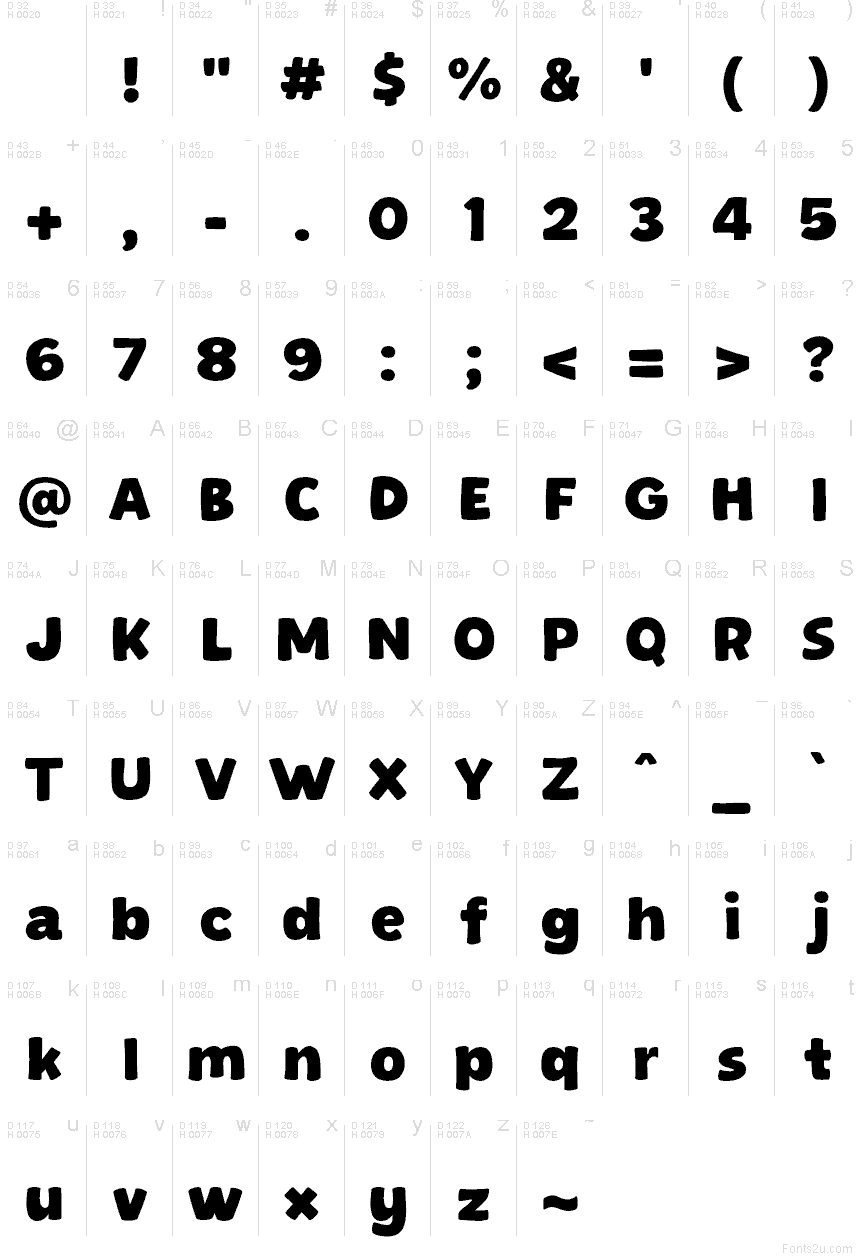
Planet Jumbo
Planet Jumbo font by MJType is a free cartoon display typeface with big, squishy letterforms that feel like they’ve been cut from soft foam. The chunky shapes, rounded corners, and slightly wobbly edges give it a friendly, huggable energy that jumps off the page without feeling chaotic. It reads quickly even at a glance, so your message stays bold and bubbly rather than messy.
Using Planet Jumbo, this free font shines on kids’ book covers, birthday invitations, toy packaging, game titles, YouTube thumbnails, and playful brand logos. Its thick strokes hold color and gradients beautifully, especially in bright, candy-like palettes. For longer copy, pair Planet Jumbo headlines with a clean, simple sans serif set smaller to keep things readable while the main letters do the fun, noisy work.